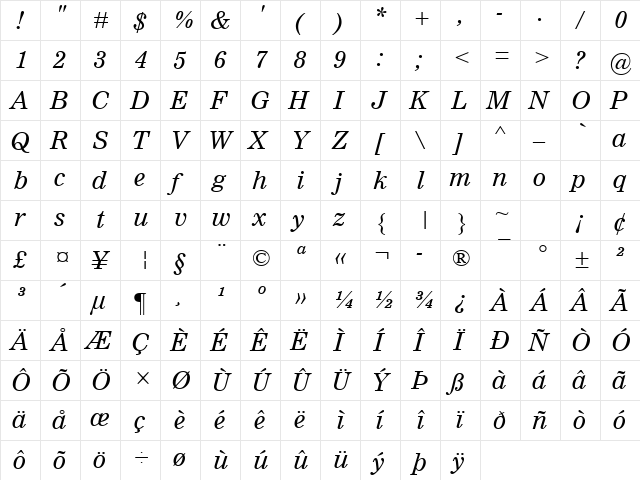
Nimrod Italic
Design Context for Nimrod Typeface
Nimrod is a composed and adaptable typeface that performs quietly and consistently across a wide range of design contexts. Its italic angle brings a sense of urgency and motion to the letterforms.
Pro Tip: Use Nimrod for emphasis, pull quotes, and subheadings where its slanted energy can add rhythm to the layout.